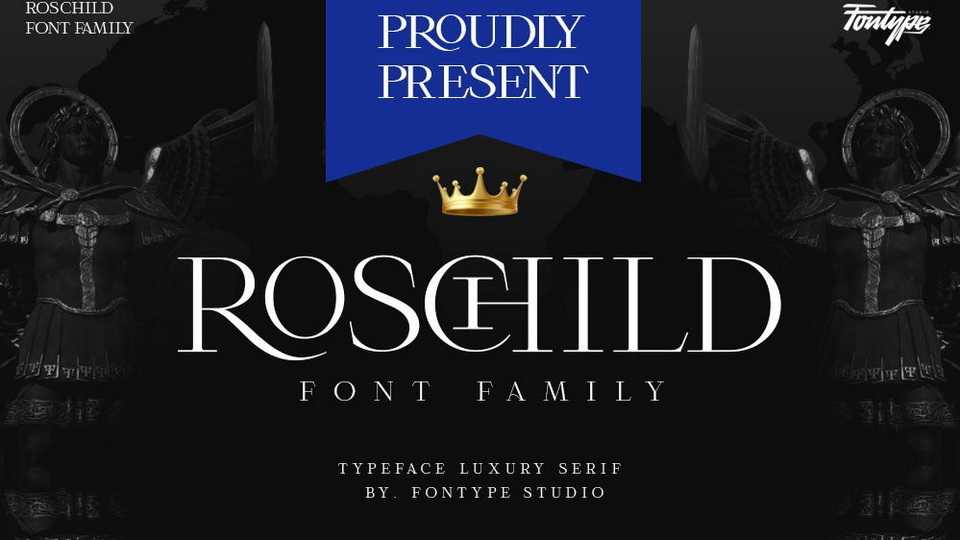
Download Roschild font, a serif typefaceinspired by ancient writing with a slight gothic / darkness touch but still brings a luxurious and elegant impression to every letter.
Designer: Ridwan Fadilah